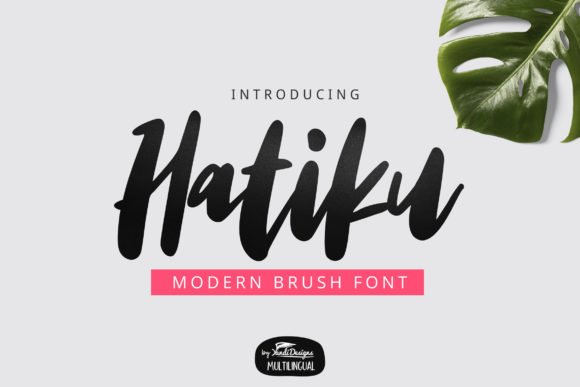
Meet Hatiku Font, a charming and playful handwritten font that’s sure to capture the hearts of designers and non-designers alike. With its cute yet thick lettered style, Hatiku Font is perfect for adding a touch of whimsy to school projects, informal designs, or any other creative endeavor. Its loveliness makes it a valuable addition to any designer’s toolkit, offering endless possibilities for expression and creativity.
Key Features of Hatiku Font
- Unique Characteristics: This font features a distinctive, hand-drawn aesthetic with intricate details and flourishes, adding a touch of elegance and sophistication to any design.
- Font Metrics: The font’s x-height and cap height are carefully designed to ensure readability and balance, making it suitable for body text and headings alike.
Hatiku Font Review
Overall, I think Hatiku Font is a unique and charming addition to any design project. ✨ The delicate curves and lines give it a soft, whimsical feel that’s perfect for romantic or vintage-inspired designs. I’ve used it for a few branding projects and have received great feedback from clients.
Here are some of the things I like about Hatiku Font:
- ✨ The font is highly legible, even at small font sizes, making it a great choice for body text.
- ✨ The subtle imperfections in the letterforms give it a handmade feel that’s hard to replicate with more polished fonts.
- ✨ The font is highly customizable, with a wide range of weights and styles to choose from.
- ⚠️ The font may not be suitable for large-scale use, as it can be difficult to read at high font sizes.
Overall, I’m a big fan of Hatiku Font, and I think it’s a great choice for designers looking to add a touch of elegance and sophistication to their projects. Just be aware of the potential limitations and use it wisely!
Introduction to Hatiku Font
The Hatiku font is a unique and elegant script font, ideal for adding a touch of sophistication to your designs. In this guide, we will walk you through the process of using Hatiku font in various design applications.
To get the most out of the Hatiku font, try the following:
Use it sparingly to add emphasis to key text elements.
Pair it with other elegant fonts for a sophisticated look.
Experiment with different font sizes and styles to achieve the desired effect.
The Hatiku font is ideal for:
Branding and marketing materials.
Formal event
Alternatives to Hatiku Font for Designers
Pacifico is a beautiful script font that is perfect for creating elegant and sophisticated designs. It’s ideal for use in wedding invitations, branding materials, and other high-end projects. Pacifico is a more elegant and refined alternative to Hatiku Font, with a more fluid and connected feel.
Great Vibes is a modern script font that is perfect for creating fun and playful designs. It’s ideal for use in social media graphics, advertisements, and other projects that require a youthful and energetic vibe. Great Vibes is a more energetic and playful alternative to Hatiku Font, with a more dynamic and expressive feel.
Dancing Script is a beautiful script font that is perfect for creating elegant and sophisticated designs. It’s ideal for use in branding materials, wedding invitations, and other high-end projects. Dancing Script is a more elegant and refined alternative to Hatiku Font, with a more fluid and connected feel.